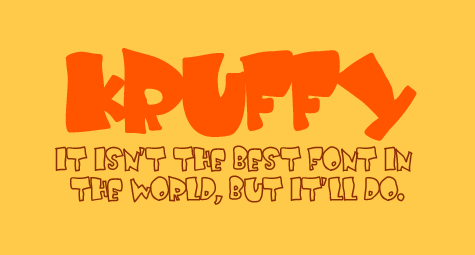
Kruffy
Play with this crazy little font after all your homework is done. Its fat, its skinny, its solid, its outlined. Looks good on a webpage about Smurfs or a tribute to Leif Garrett.